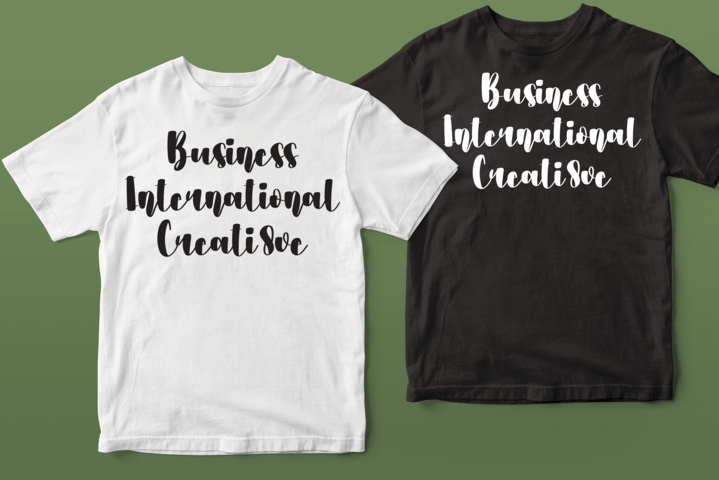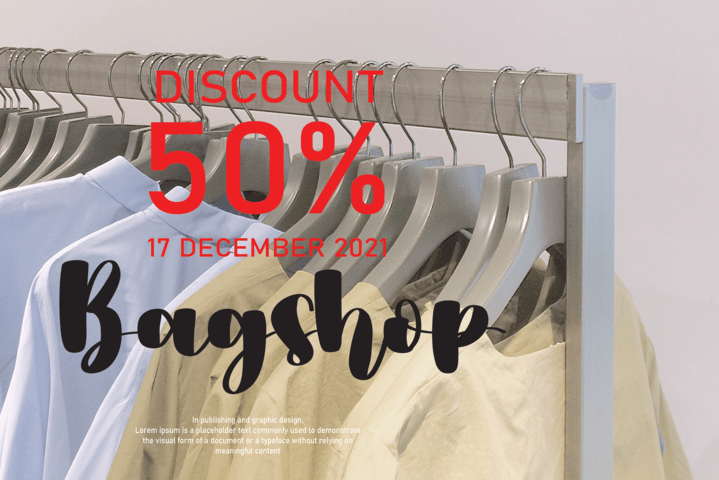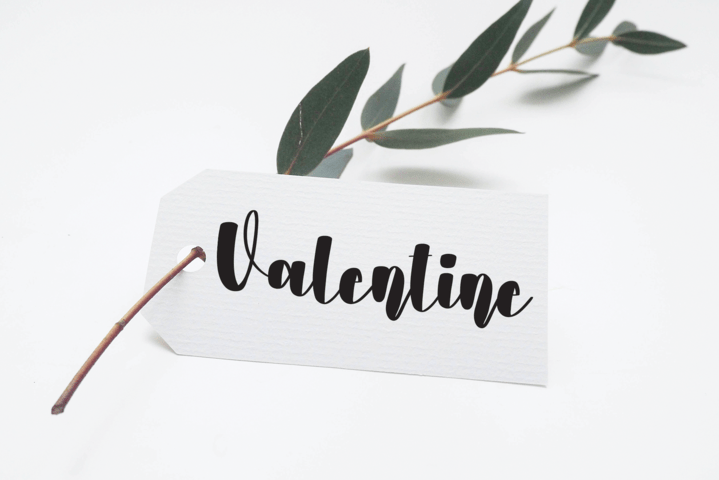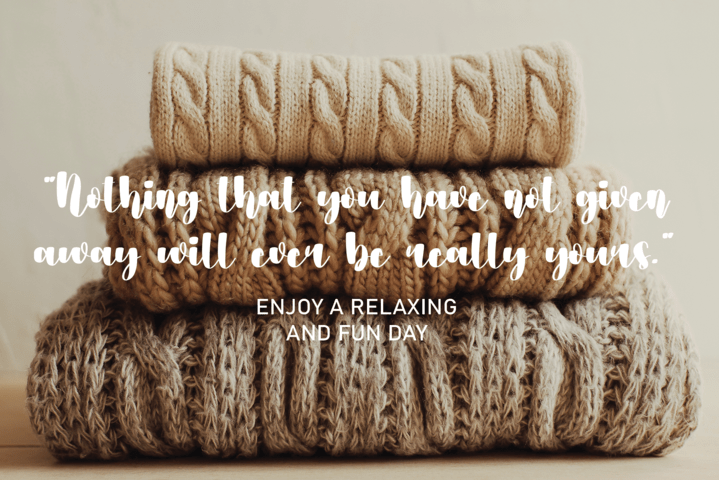
Farmhouse Font
Farmhouse Script Font
It’s an exquisite handwriting and unique font that you can use on wedding invitations, fashion, magazines, branding, quotes, labels, watermarks, and more!